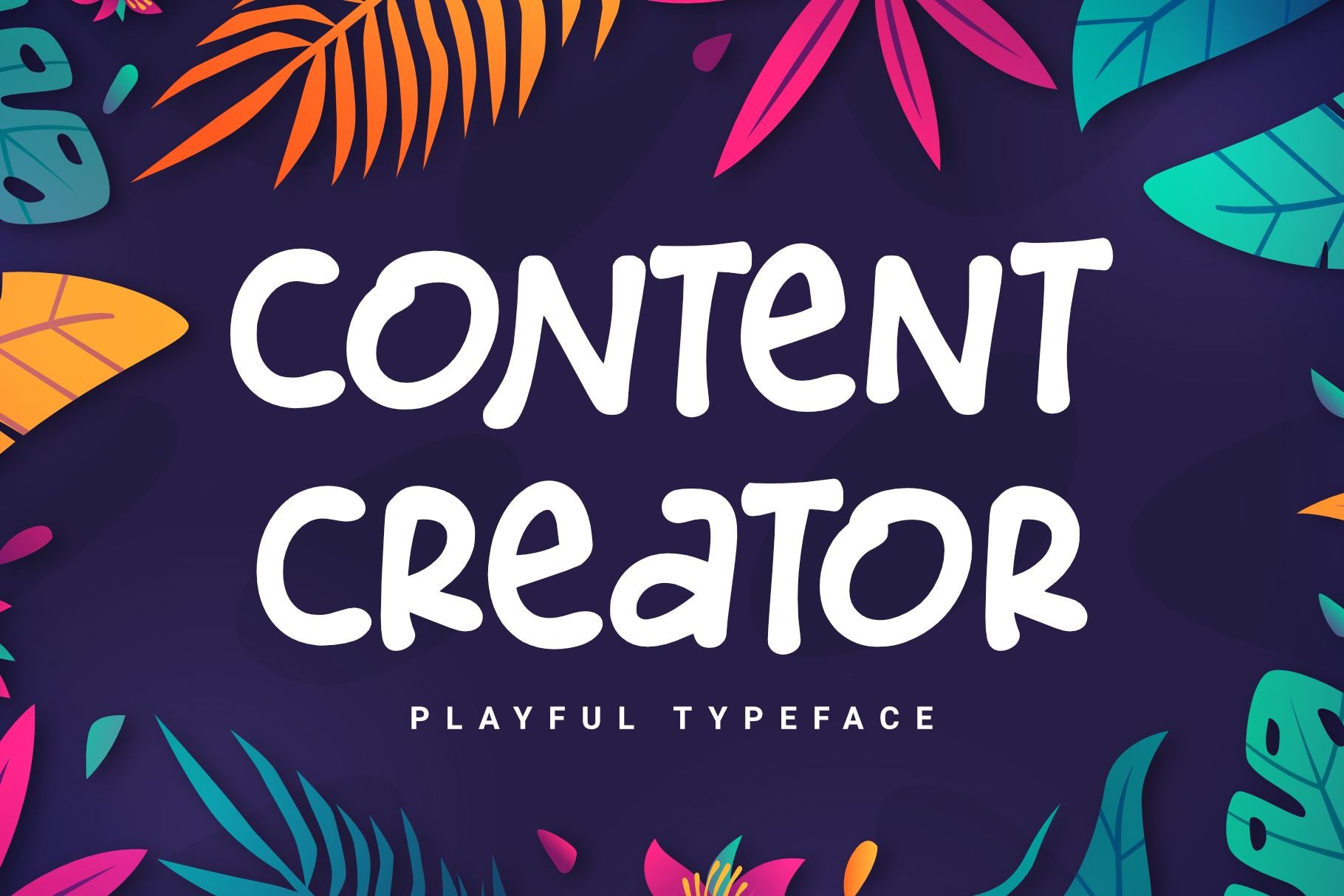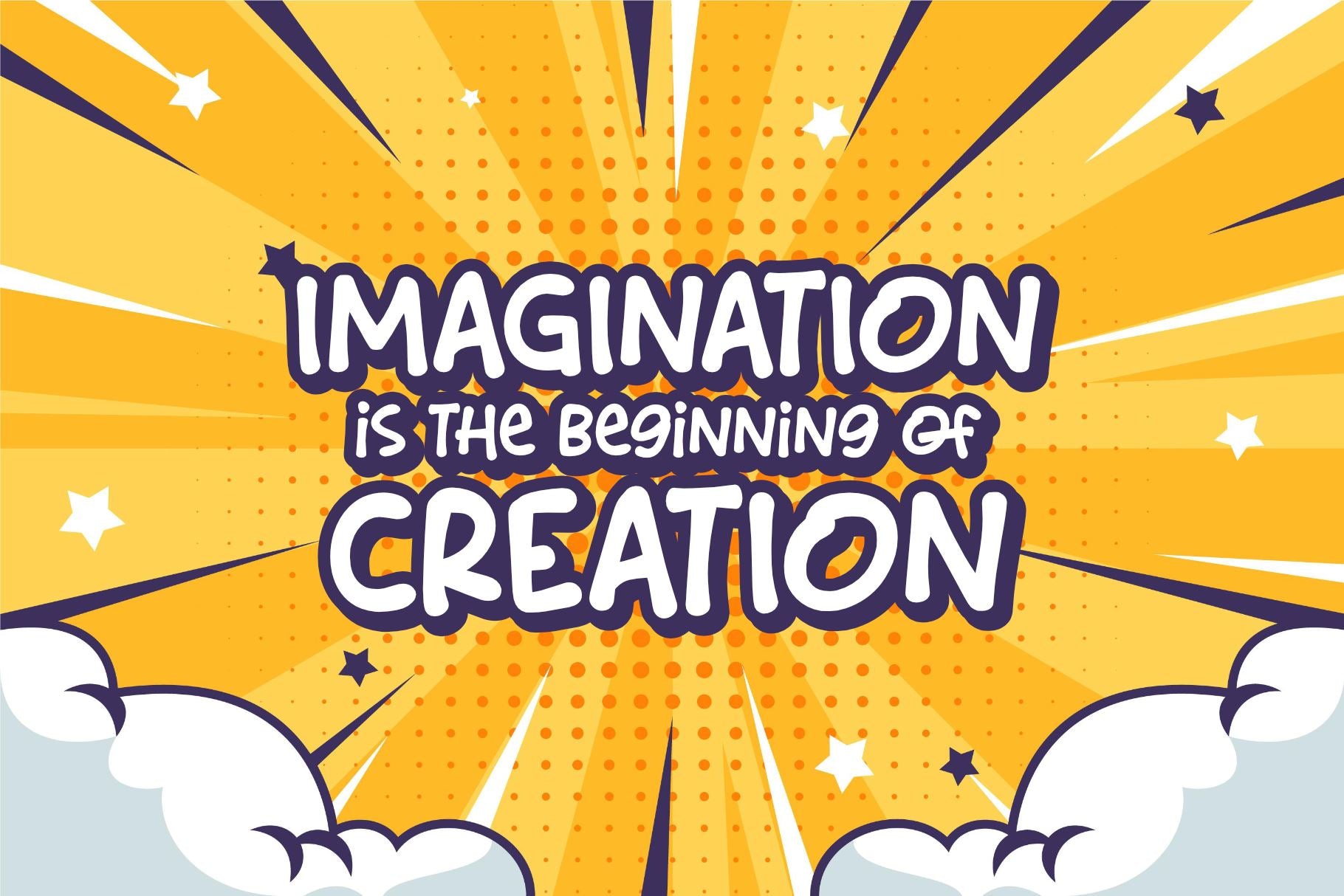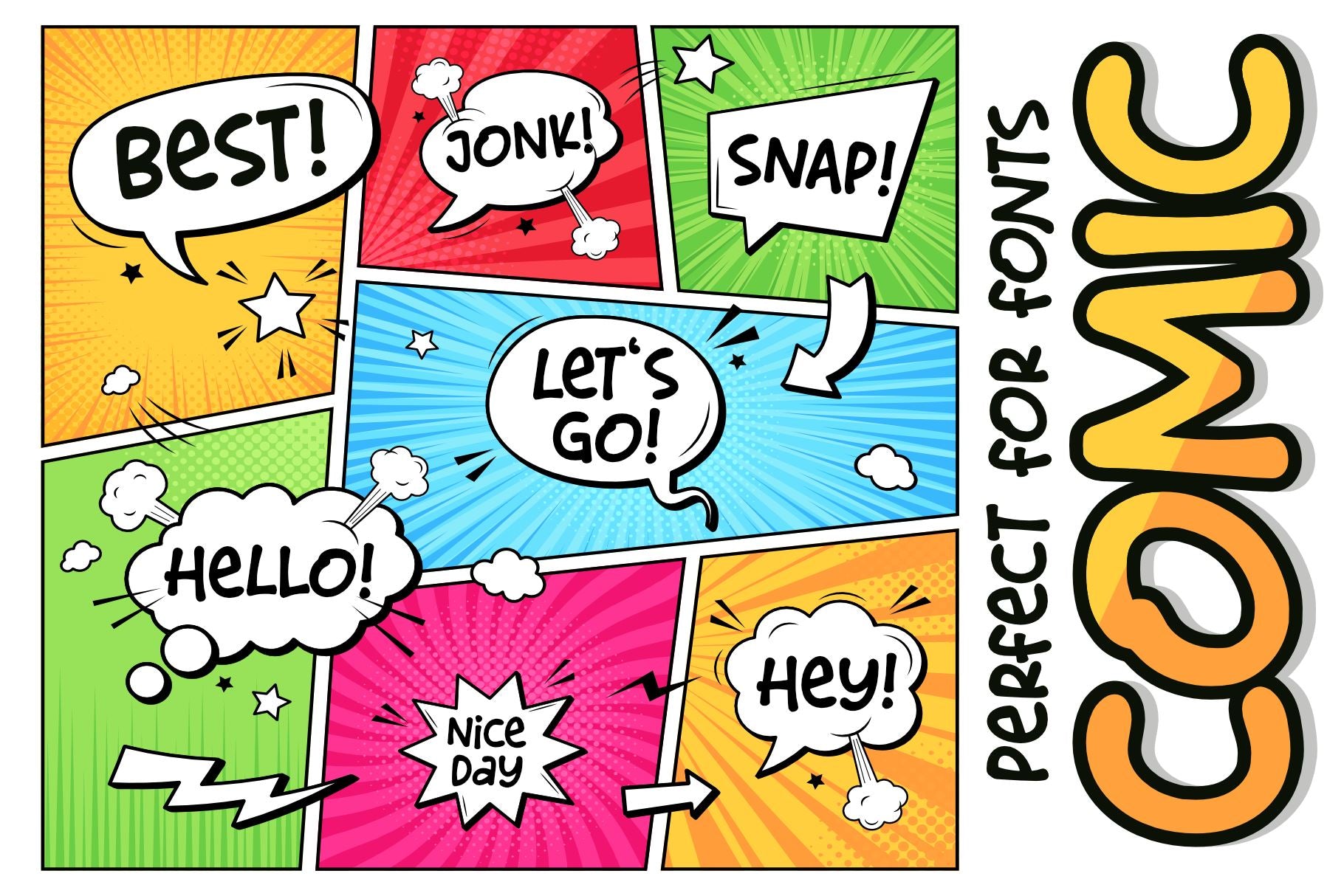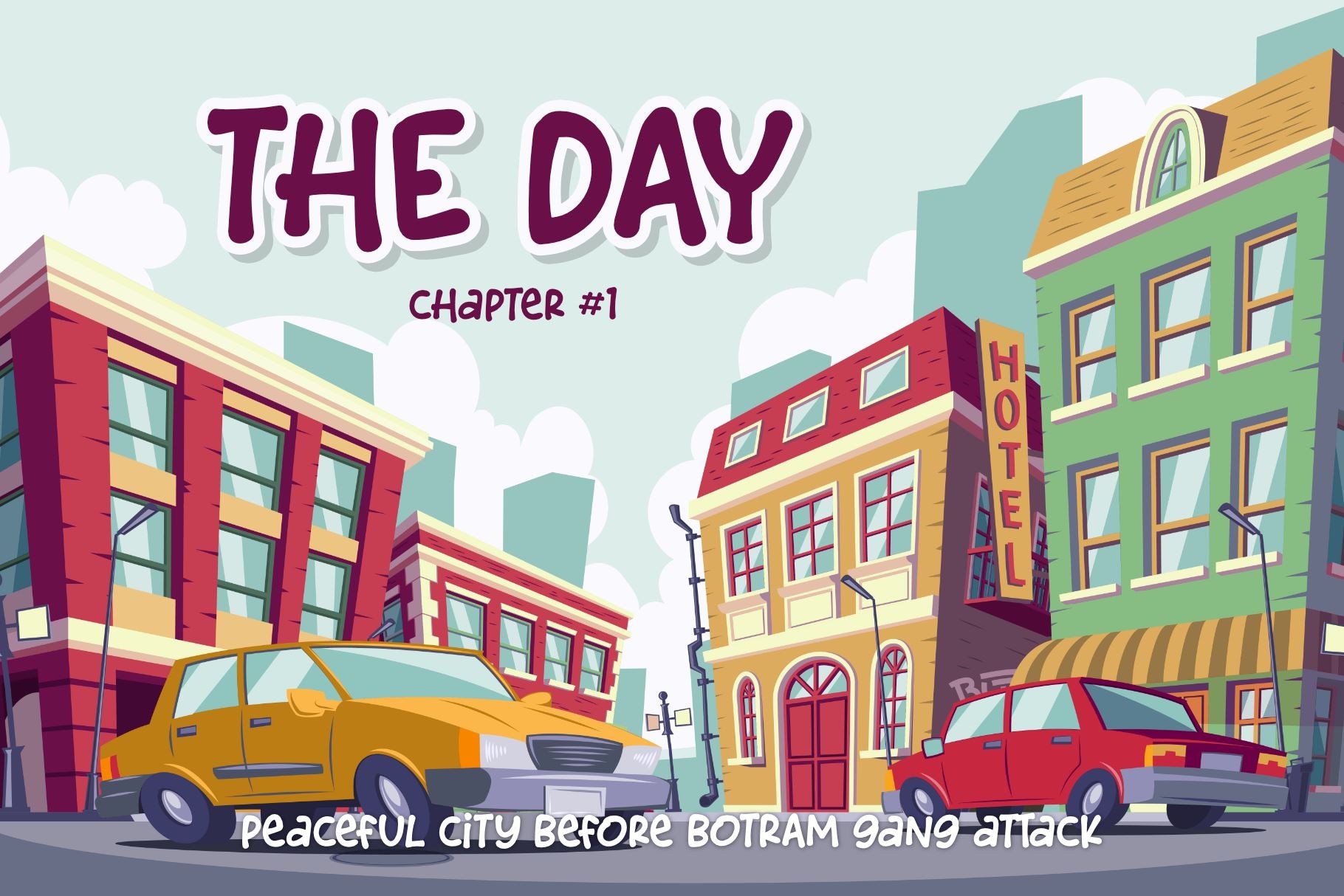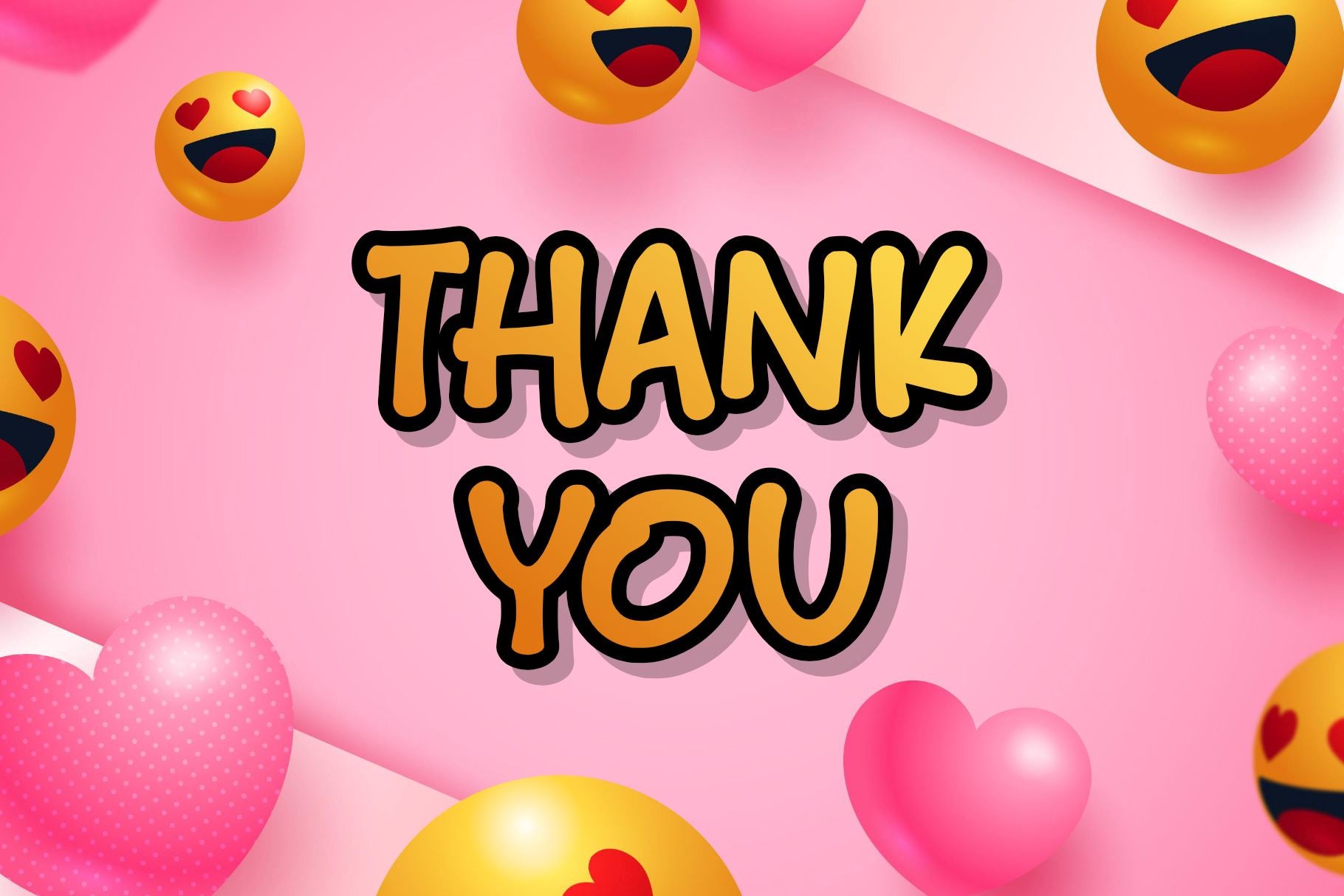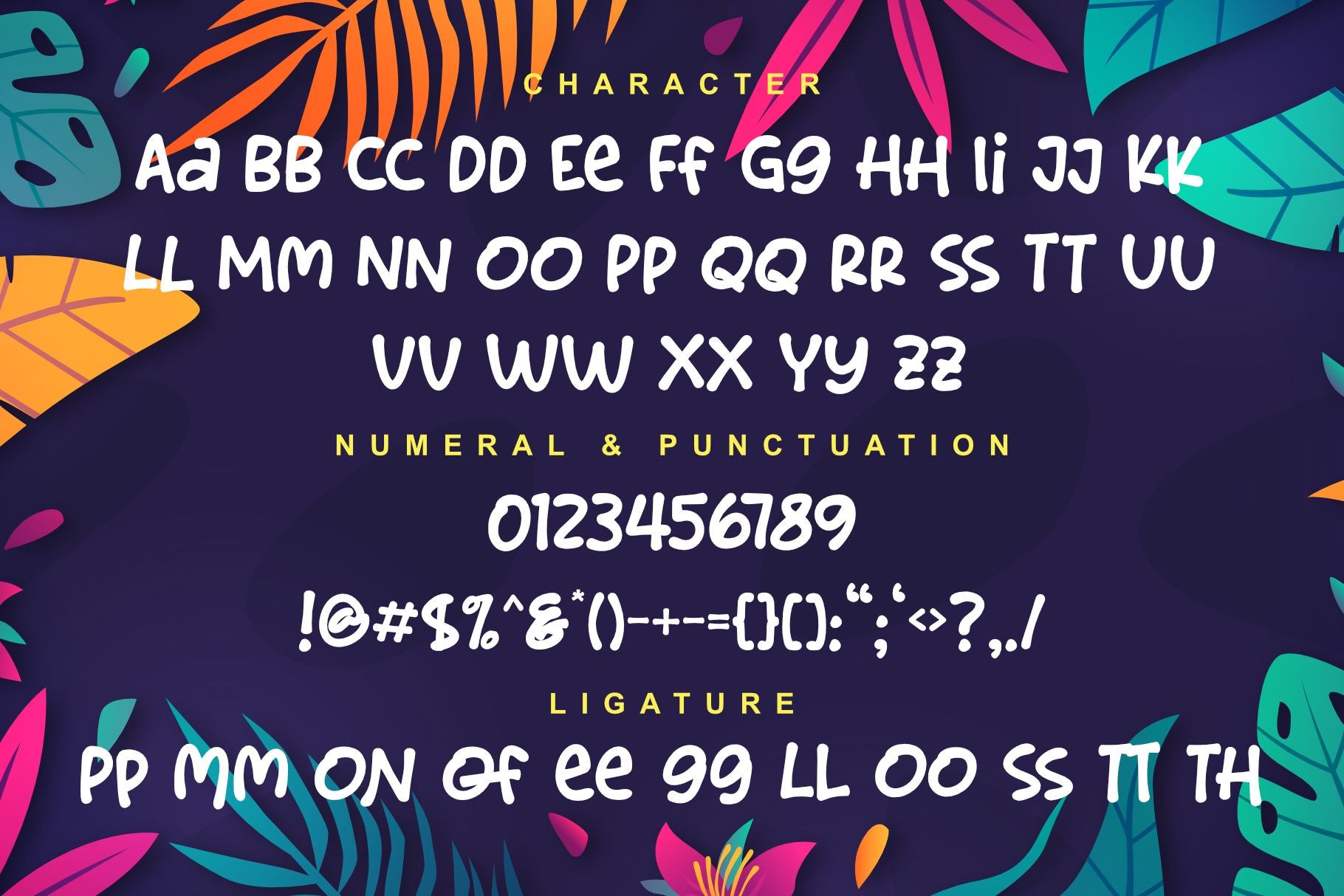
Content Creator – Playful Typeface
About Content Creator – Playful Typeface
Content Creator – Playful Typeface is a comic-themed font that can be used for your design needs. as the title suggests, this font is specifically for content creators to improve the quality of the designs and projects they are working on. Content Creator is perfect for design, logos, social media, brands, advertising, product design, handwritten quotes, product packaging, headers, posters, merchandise, and other designs. What’s Included : + Content Creator (OTF/TTF) + Standard glyphs + Ligature + Web Font + Multilingual Accent + Works on PC & Mac, Simple installations Accessible in Adobe Illustrator, Adobe Photoshop, Adobe InDesign, even work on Microsoft Word. PUA Encoded Characters – Fully accessible without additional design software. Fonts include multilingual support + Image used: All photographs/pictures/vectors used in the preview are not included, they are intended for illustration purposes only. Thanks